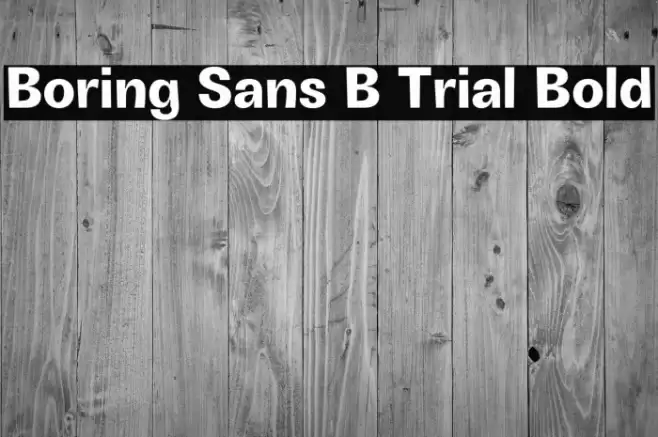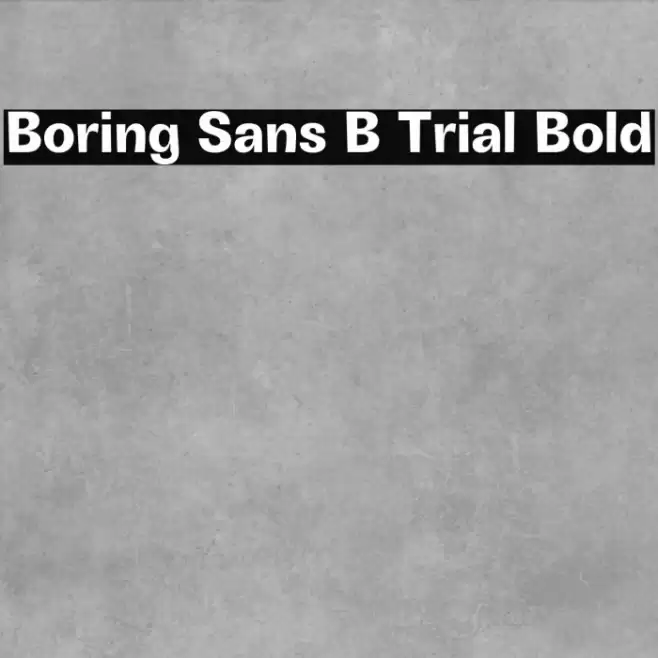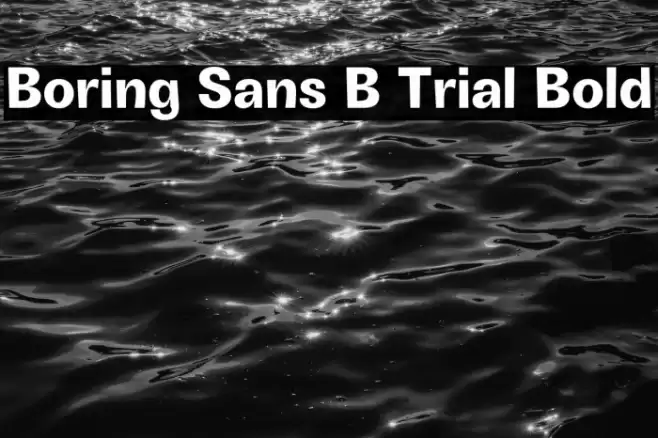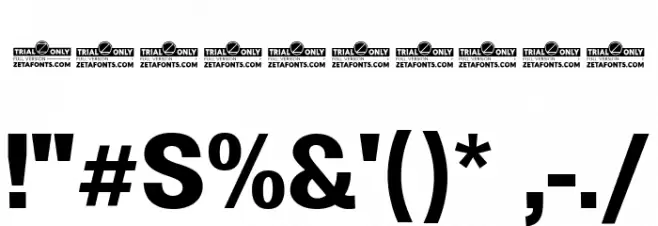
Boring Sans B Trial Bold Font
Boring Sans B Trial Bold Description
This typeface features a bold, sans-serif style with clean, geometric lines and uniform stroke widths. The characters are well-proportioned, offering a modern and straightforward appearance. Uppercase and lowercase letters maintain a consistent height, contributing to a balanced and cohesive look. The numerals and special characters are designed with the same attention to detail, ensuring readability and versatility across various applications. The font's simplicity and clarity make it suitable for both digital and print media, providing a professional and contemporary aesthetic.
A bold, modern sans-serif font with clean lines and uniform stroke widths from Uncategorized fonts.
- Proposed Projects: Ideal for branding, advertising, web design, and editorial projects where clarity and modernity are key.
- Use Case: Headlines, Logos, Digital Media